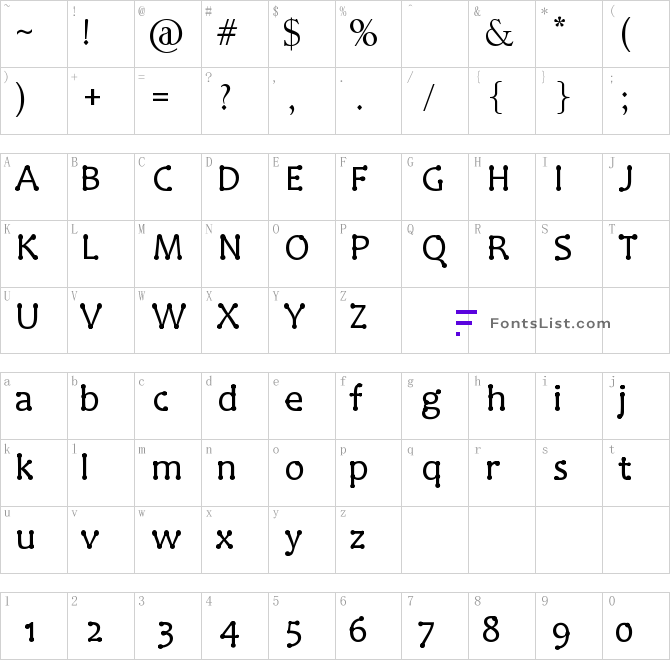
- Font Name:Aunty Lils Dots
Aunty-Lils-Dots-copy-1-.ttf is a very beautiful artistic font, Aunty-Lils-Dots-copy-1-.ttf is widely used in the design and printing of various books and pictures,Aunty-Lils-Dots-copy-1-.ttf has a strong visual impact,Aunty-Lils-Dots-copy-1-.ttf is a commonly used font in newspapers, magazines and books, and is used in posters, e-commerce Poster design, store design, logo design, font design and other fields.Aunty-Lils-Dots-copy-1-.